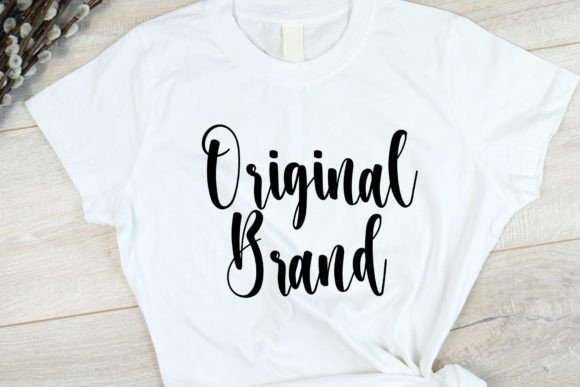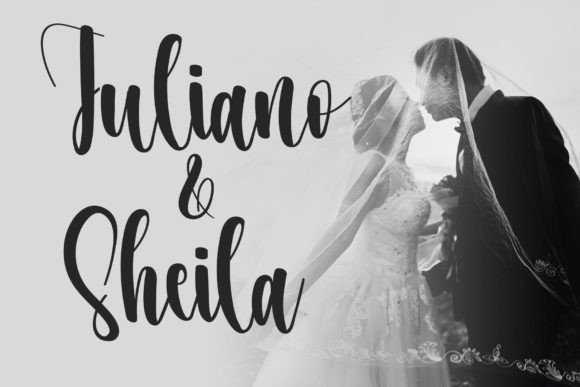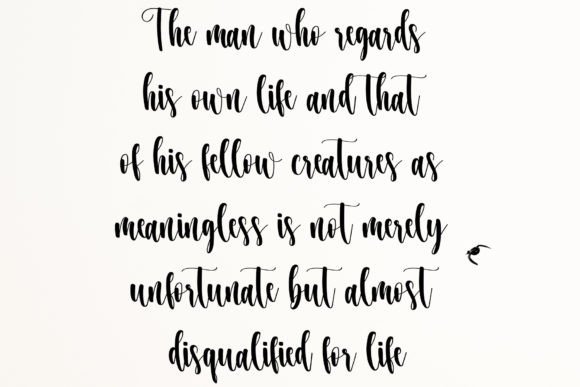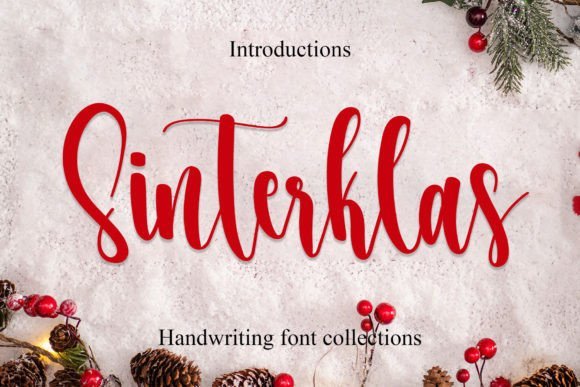
Introduction to Sinterklas Font
Sinterklas is a stylish handwritten font with a contemporary atmosphere and impeccable form, inspired by timeless classic calligraphy.
Balanced and varied, this font was designed to enhance the beauty of your projects .
Sinterklas Font offers exceptional quality and versatility, making it a valuable addition to your design toolkit. Whether you’re creating for personal projects or commercial use, Sinterklas Font delivers professional results.